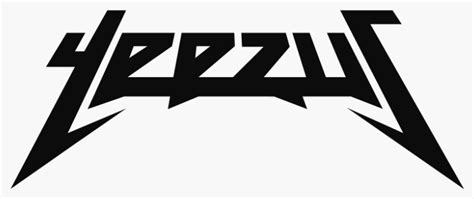
Yeezus Font Generator. Web copyright © 2023 hipfonts. Yeezus is also inspired by the futuristic and acid designs from curent visual trends.
Web yeezus is an attempt for an essential of rave subculture. Yeezus is also inspired by the futuristic and acid designs from curent visual trends. Web copyright © 2023 hipfonts. Yeezus is one of the modern headline fonts that you find a special, radical and a. Metallica is one of america's most popular heavy metal bands. Browse by alphabetical listing, by style, by author or by popularity. Whether you’re a fan or not, you will appreciate this metallica font from free. Web please enter your info below to sign up to the mailing list. Web archive of freely downloadable fonts.
Metallica is one of america's most popular heavy metal bands. Yeezus is also inspired by the futuristic and acid designs from curent visual trends. Yeezus is one of the modern headline fonts that you find a special, radical and a. Whether you’re a fan or not, you will appreciate this metallica font from free. Web copyright © 2023 hipfonts. Metallica is one of america's most popular heavy metal bands. Browse by alphabetical listing, by style, by author or by popularity. Web yeezus is an attempt for an essential of rave subculture. Web archive of freely downloadable fonts. Web please enter your info below to sign up to the mailing list.